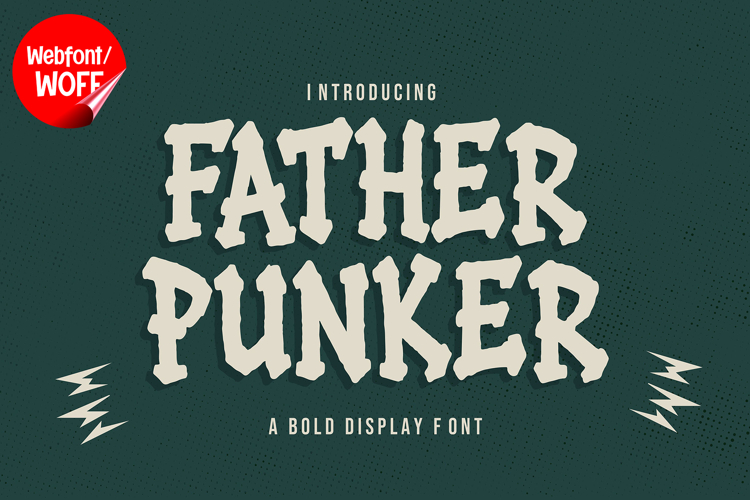
Father Punker - Punk Display Webfont
Father Punker is a bold punk-inspired display webfont designed to bring raw underground energy into modern digital experiences. Inspired by alternative music culture, vintage punk posters, DIY typography, garage band aesthetics, and rebellious visual trends, Father Punker combines rugged handcrafted forms with bold display structure to create typography filled with attitude and expressive personality.
The font features distressed edges, rough shapes, and bold proportions that create strong visual impact while maintaining readability across different screen sizes. Suitable for websites, music promotions, streetwear branding, gaming visuals, alternative campaigns, social media graphics, and edgy digital presentations.
Father Punker transforms ordinary digital typography into bold visual statements with gritty underground aesthetics and retro punk atmosphere.
Features- Uppercase Characters
- Lowercase Characters
- Numbers & Punctuation
- Punk Display Style
- Distressed Letterforms
- Rough Vintage Texture
- Bold Digital Typography
- Alternative Visual Character
- Underground Aesthetic
- Website Headers
- Music Promotions
- Band Graphics
- Gaming Interfaces
- Streetwear Branding
- Alternative Campaigns
- Social Media Posts
- Punk Posters
- Digital Merchandise
- Event Promotions
- Creative Editorials
- YouTube Graphics
- Online Branding
- Underground Visuals
Father Punker delivers strong visual personality with handcrafted punk energy and bold modern readability. The distressed texture and rough shapes create expressive typography that feels rebellious and authentic.
The font works beautifully in large digital headlines, alternative branding systems, grunge-inspired layouts, retro web visuals, and music-oriented online content. Its rough handcrafted character helps create memorable typography with strong underground identity.
The multilingual support allows broader design flexibility across multiple languages, while punctuation and numeric characters help complete professional digital typography systems.
Inspired by punk rock culture, underground zines, vintage concert posters, rebellious street aesthetics, and DIY creative movements, Father Punker brings authentic punk spirit into modern digital typography.
Perfect for creators seeking bold display typography with gritty personality and strong visual attitude.